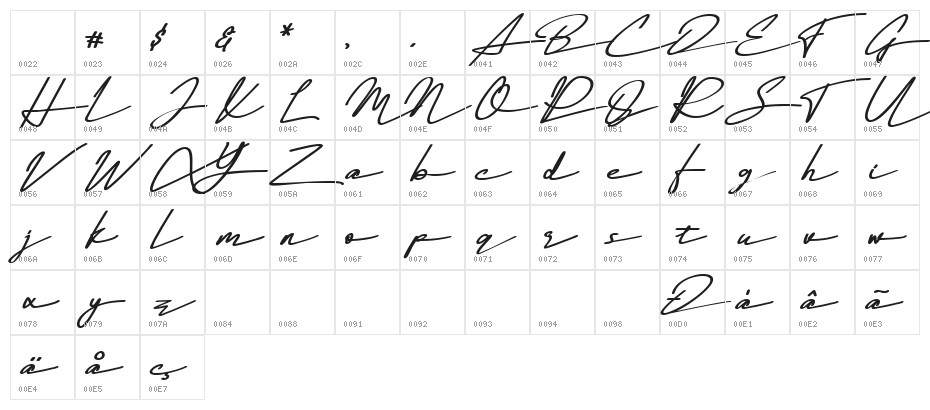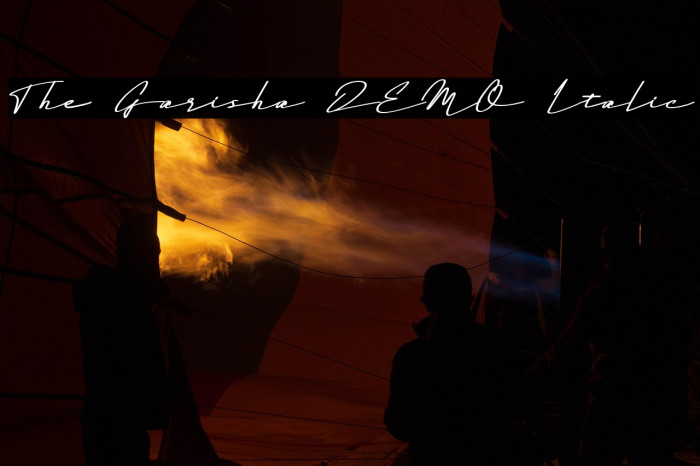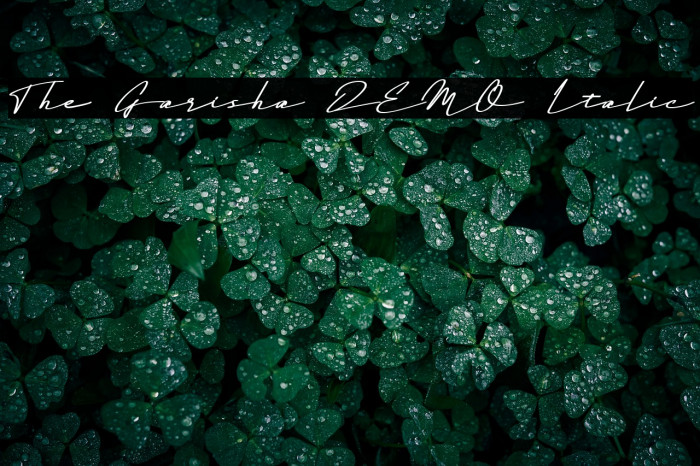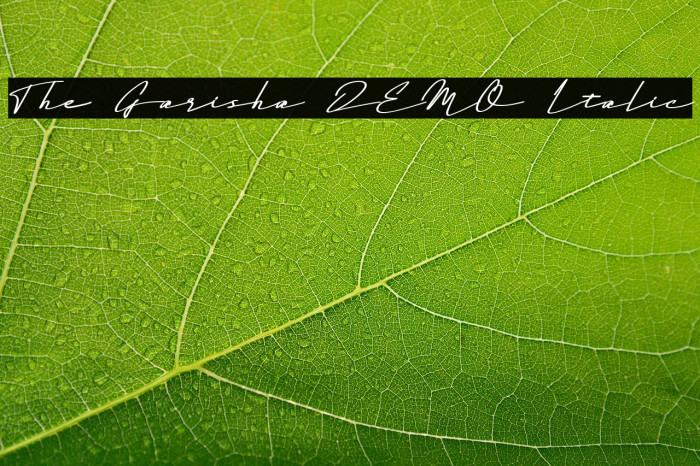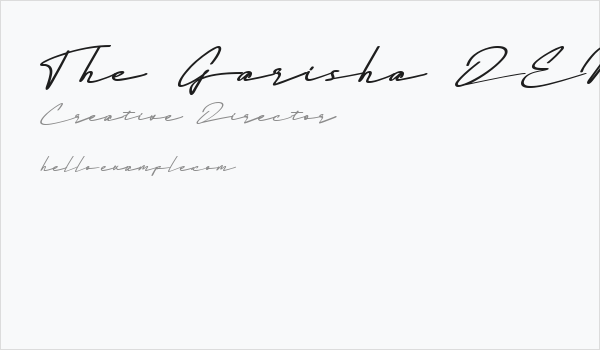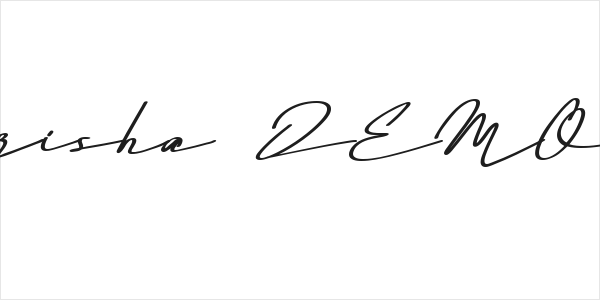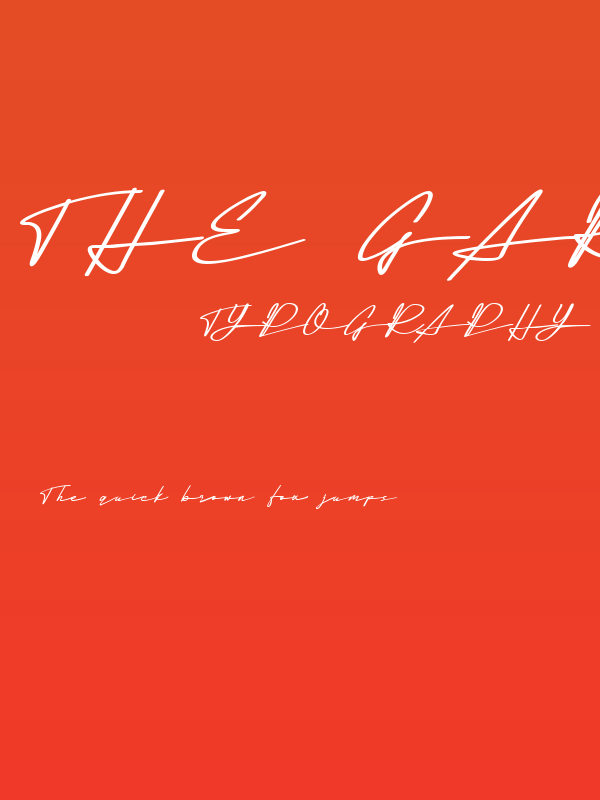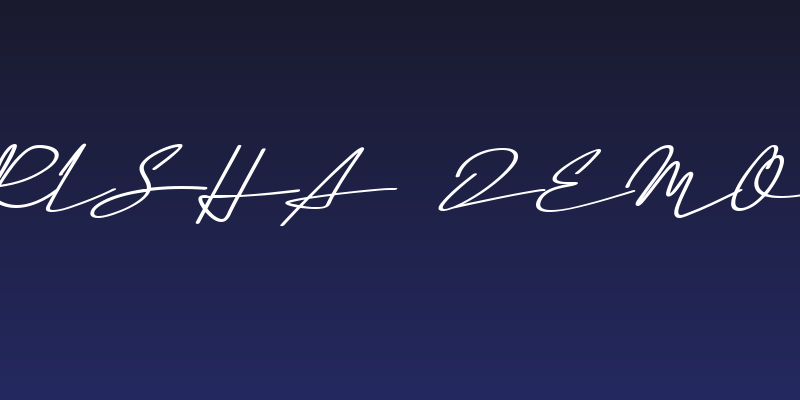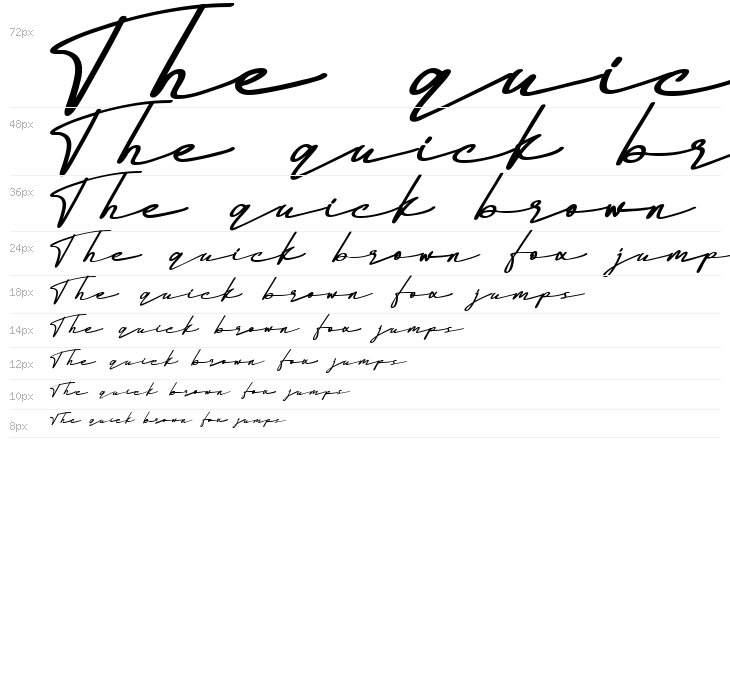
The Garisha DEMO Italic Font
The Garisha DEMO Italic Description
This font exudes a modern and elegant script style, characterized by its fluid, cursive strokes that mimic natural handwriting. The letters are connected, creating a seamless flow that enhances its readability and aesthetic appeal. The uppercase and lowercase letters maintain a consistent slant, adding to its sophisticated appearance. The font features a medium contrast in stroke thickness, with thin upstrokes and thicker downstrokes, which is typical of calligraphic styles. The special characters are designed with the same attention to detail, ensuring they blend seamlessly with the alphabetic characters. This font is perfect for projects that require a personal touch, such as invitations, greeting cards, or branding materials.